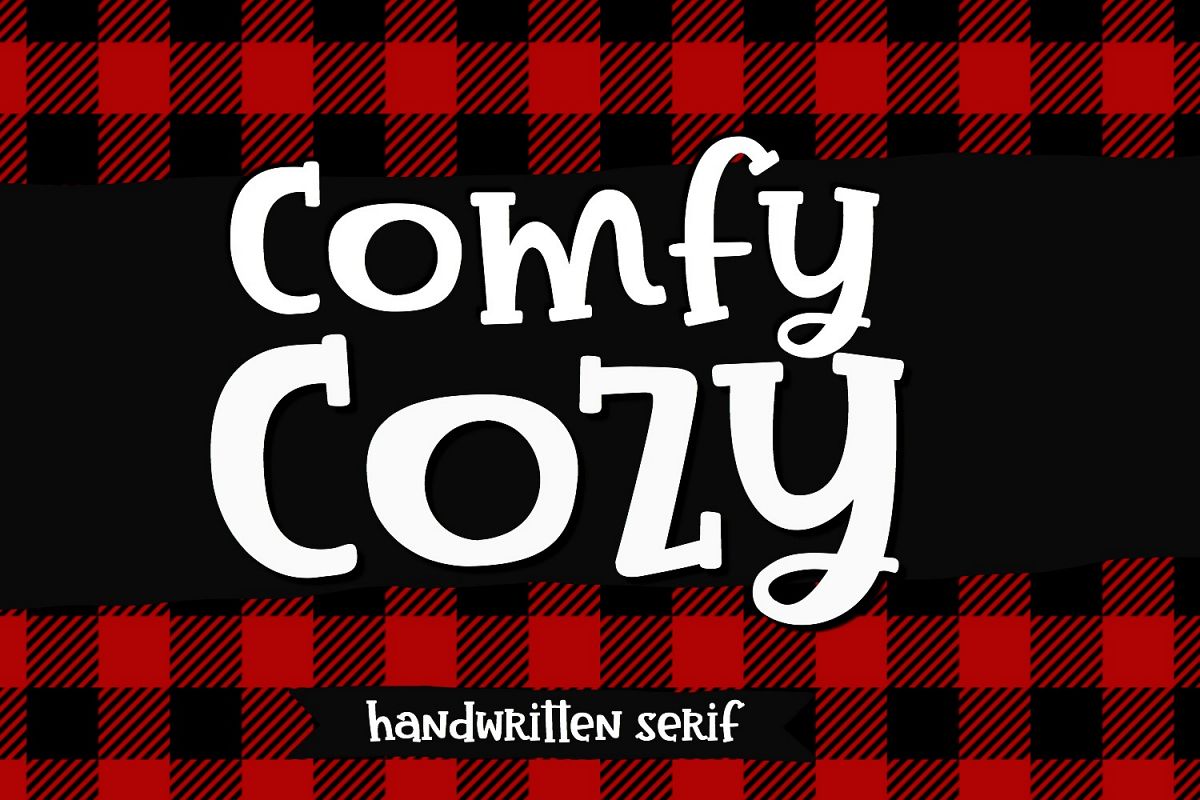
Comfy Cozy Serif Handwritten Font
Meet Comfy Cozy Serif. I've made this font as smooth as possible, reducing the amount of nodes in each glyph to ensure optimal cutting with Cricut, Silhouette or other craft machines. Comfy Cozy supports English and most Western European languages.This font is part of the Comfy Cozy Font Trio that can be found here: https://fontbundles.net/sabrina-schleiger-design/306508-comfy-cozy-font-trio-sans-serif-and-doodle-font-bu